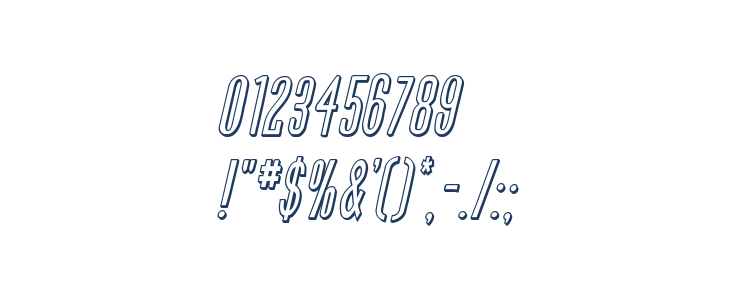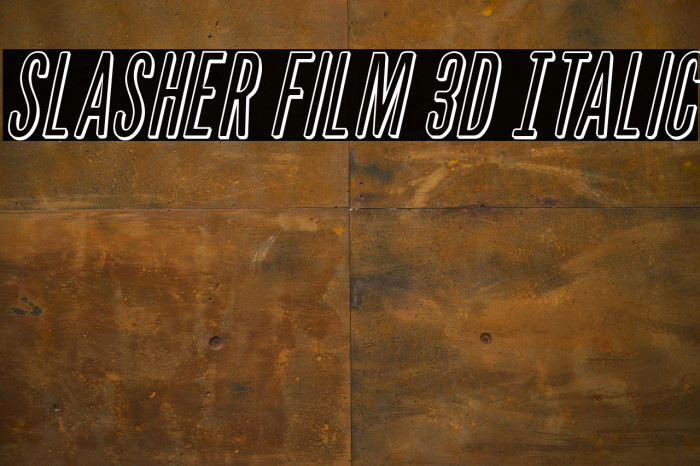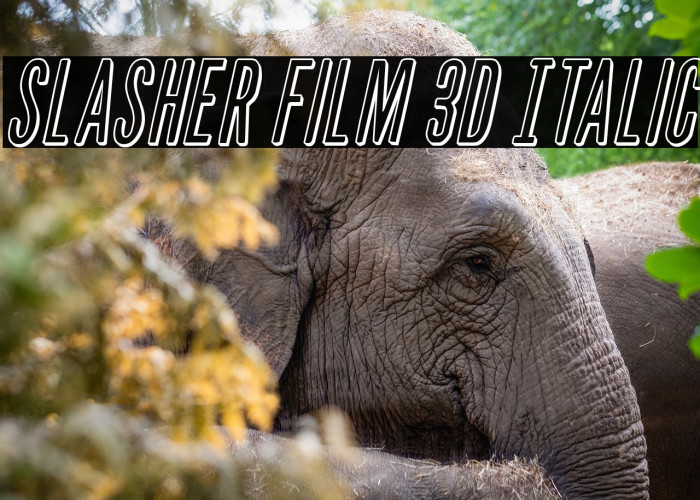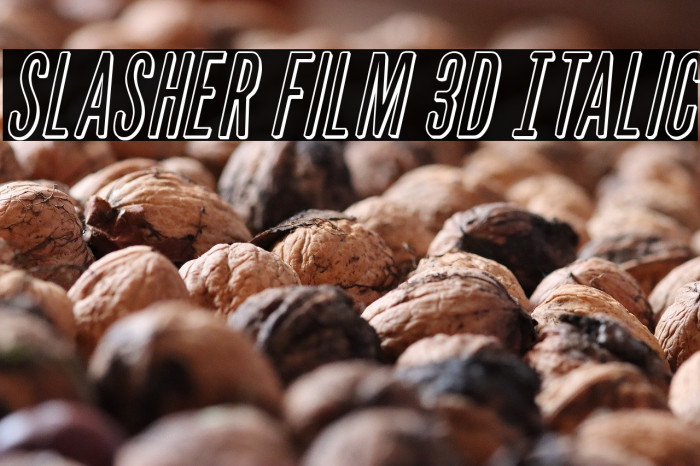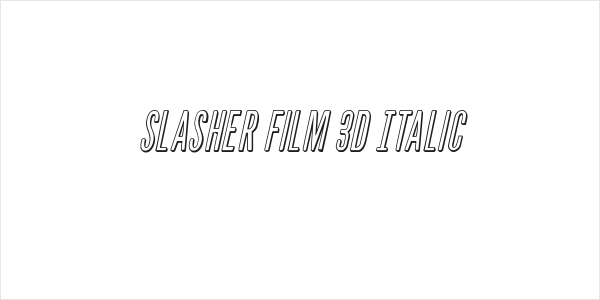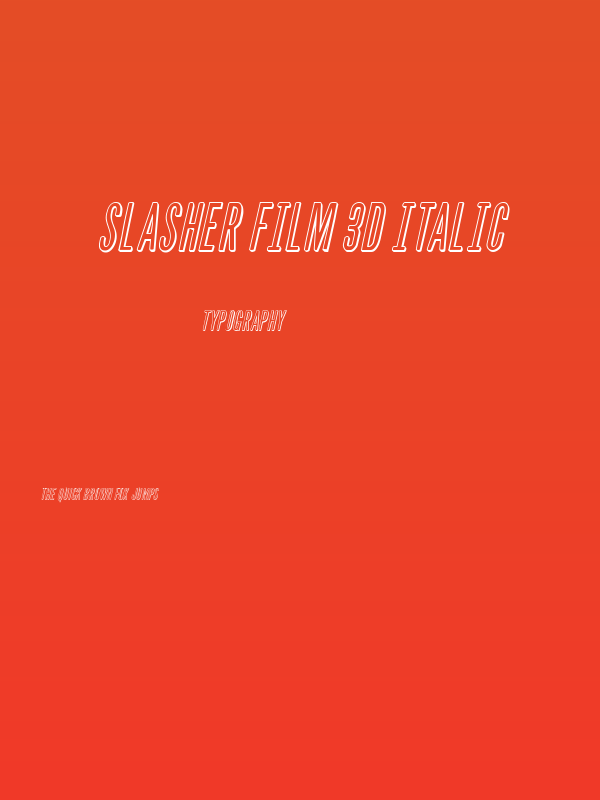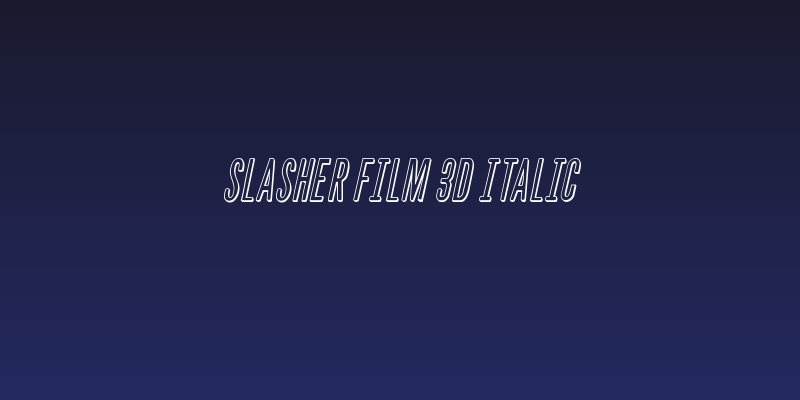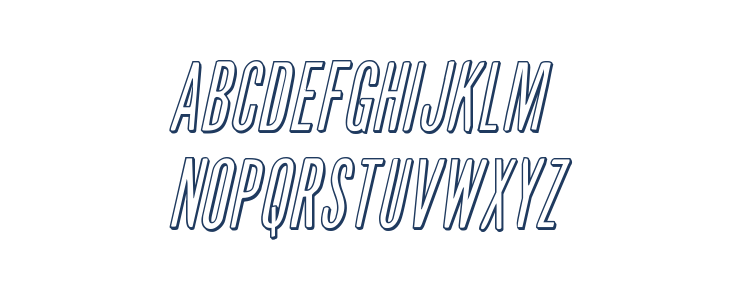
Slasher Film 3D Italic Font
Slasher Film 3D Italic Description
This font features a bold, italicized style with a distinct 3D effect, giving it a dynamic and eye-catching appearance. The characters are outlined, creating a shadow-like effect that enhances the three-dimensional look. The uppercase letters are tall and narrow, with a slight slant to the right, adding to the italicized feel. The numbers and special characters maintain the same stylistic elements, ensuring consistency throughout the font. This design is particularly suited for projects that require a bold and impactful visual statement.
Proposed ProjectsIdeal for movie posters, video game titles, and edgy branding projects.